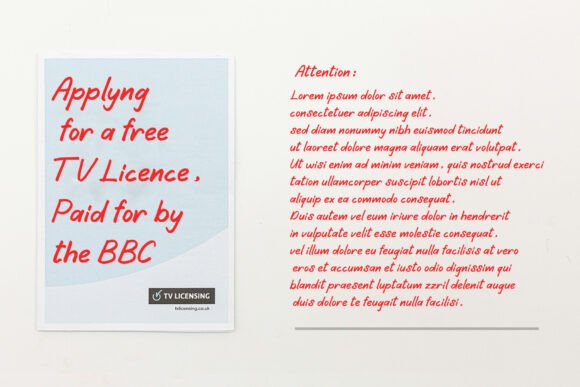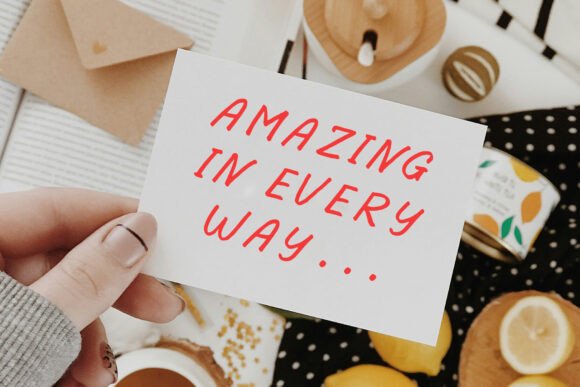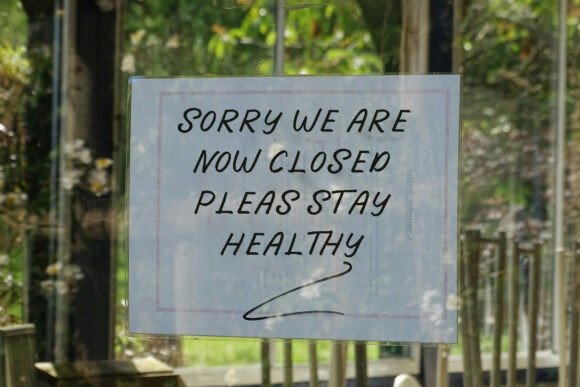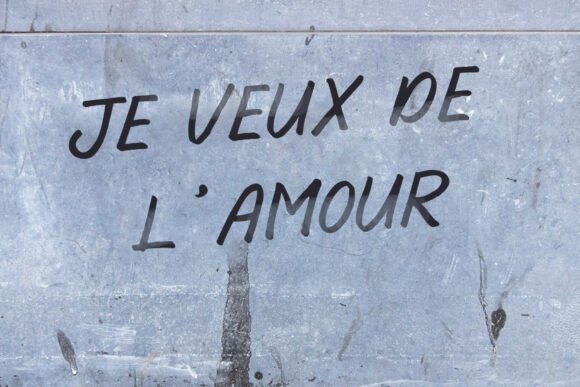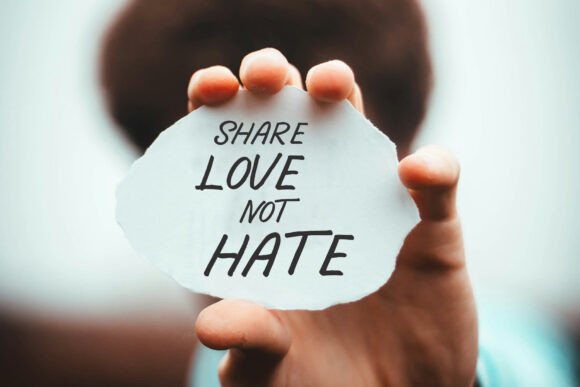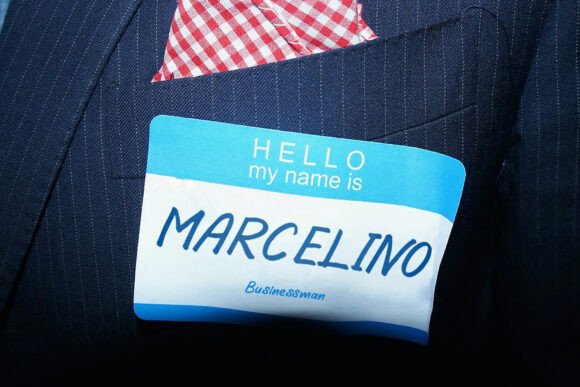
Introduction to Momenteam Font
Introducing an authentic, hand-drawn typeface – this font embodies organic charm and a homemade aesthetic.
Crafted meticulously with a marker and directly transcribed onto paper, it’s subsequently transformed into a digital vector format This ensures unrivaled quality, longevity, and versatility.
Key Features of Momenteam Font
Why Choose Momenteam Font?
Momenteam Font offers exceptional quality and versatility, making it a valuable addition to your design toolkit. Whether you’re creating for personal projects or commercial use, Momenteam Font delivers professional results.